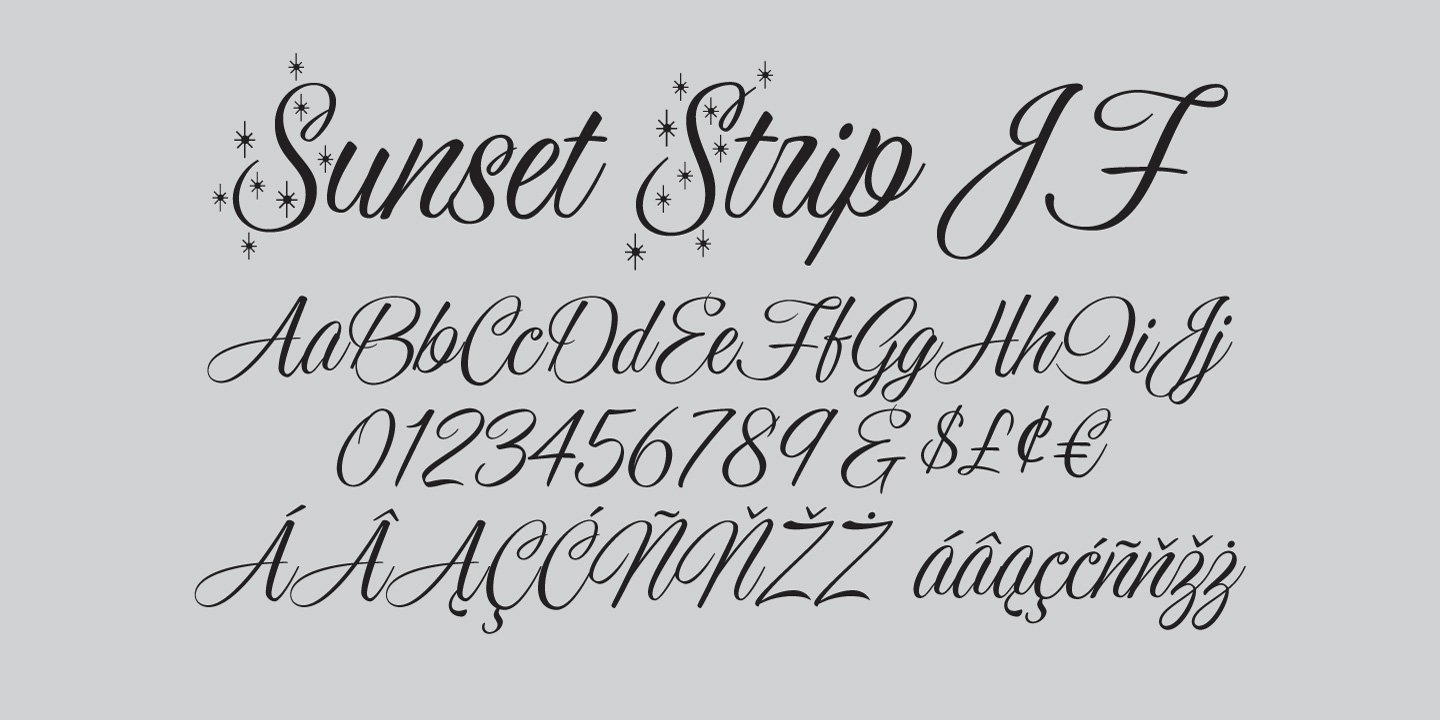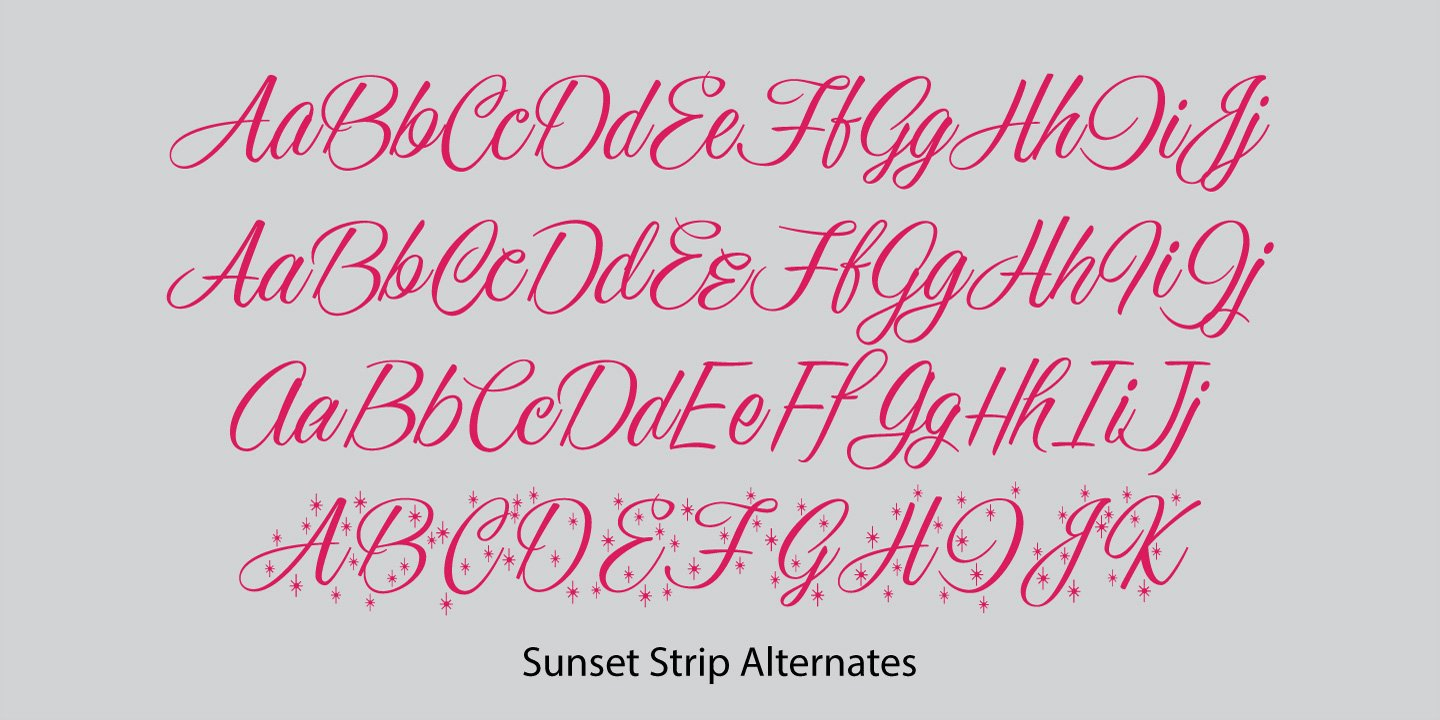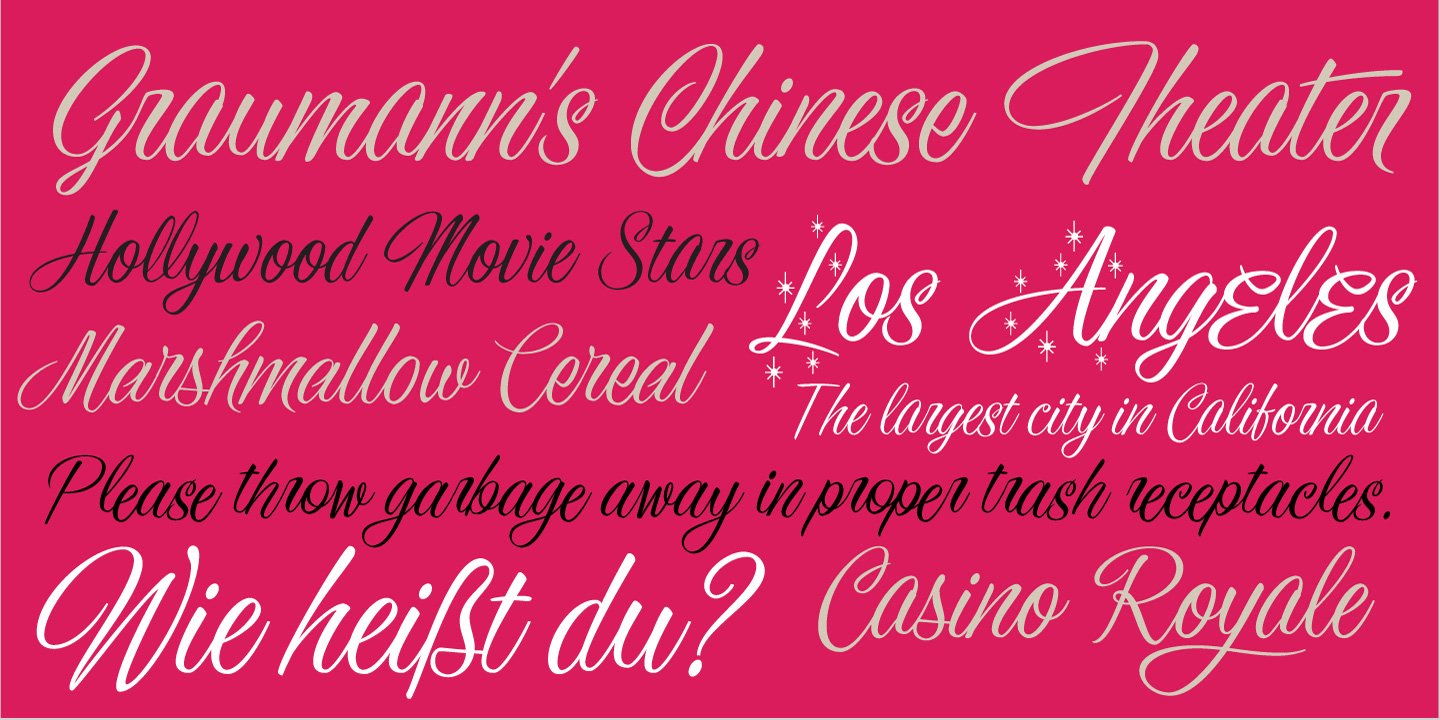
Sunset Strip
Sunset Strip is a beautiful casual script font with a wide range of applications. This original Jukebox font is another in the series of typefaces I created based on the work of the venerable late sign painter Mike Stevens. The flowing ease of this font with its mid-century modern style makes it a great choice for a design that needs class and approachability. There are at least three versions of each letter and in some cases a few more, giving the font the ability to mimic handlettering more closely. There are also two full sets of alternate "Star Caps" added for extra fun!